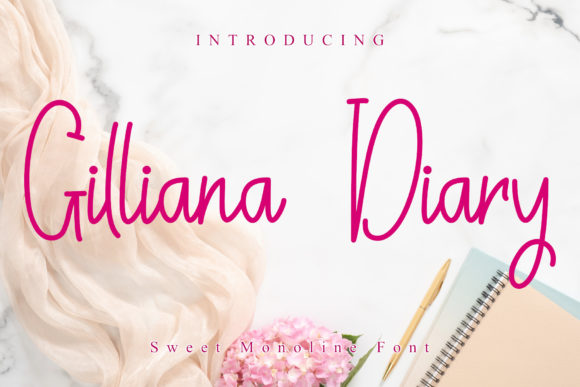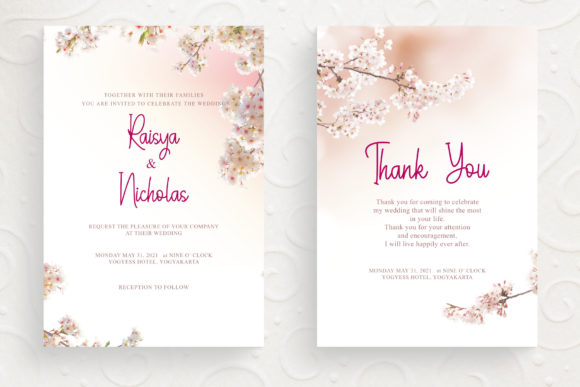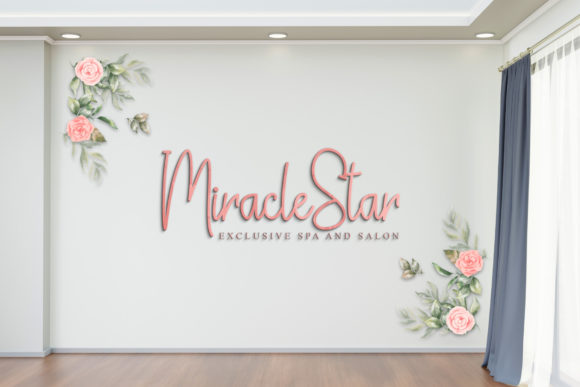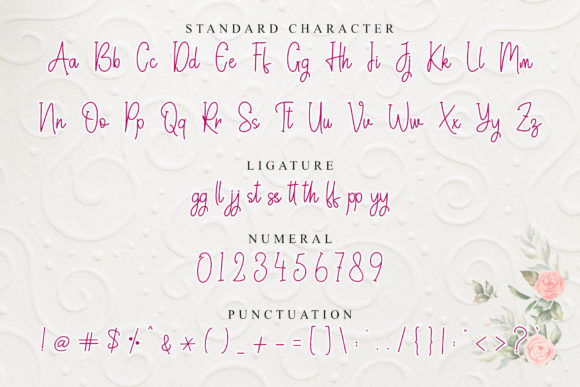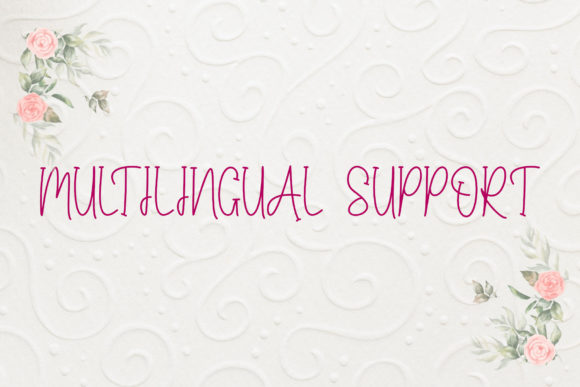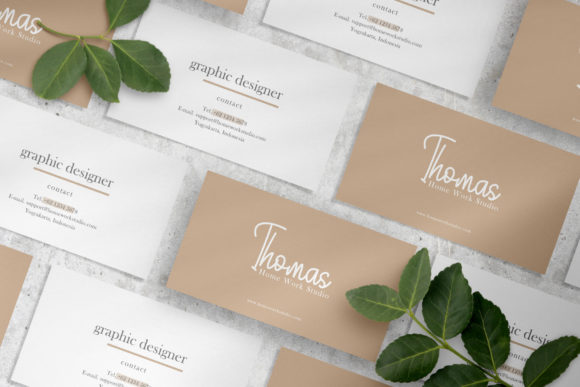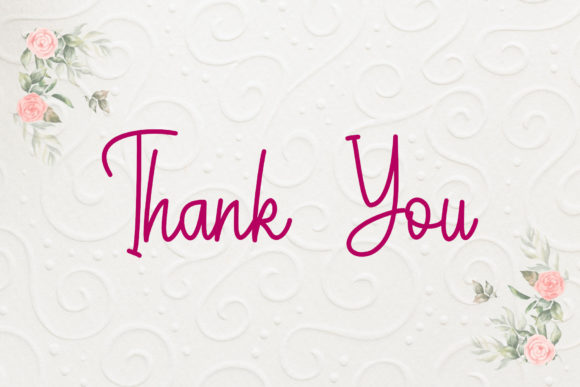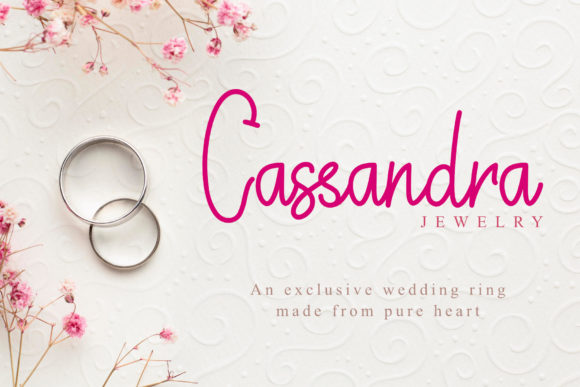
Script Fonts Gilliana Diary Font 0 163 FacebookTwitterPinterestWhatsApp 1 of 8 Gilliana Diary Font Poster 2... Gilliana Diary Font Poster 3... Gilliana Diary Font Poster 4... Gilliana Diary Font Poster 5... Gilliana Diary Font Poster 6... Gilliana Diary Font Poster 7... Gilliana Diary Font Poster 8... About Gilliana Diary Font Gilliana Diary is a quirky yet elegant handwritten font. Gilliana Diary is suitable for invitations, wedding invitations, greeting cards, business cards, and so much more. DOWNLOAD NOW